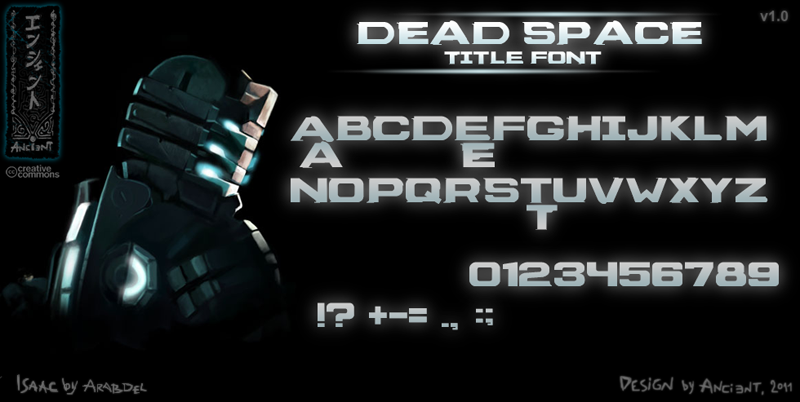
Preview and download Dead Space Box Art Font. Created by Nick Polyarush in Techno Sci-fi styles with Free for personal use license.
Font name: | Dead Space Box Art |
Author: | Nick Polyarush |
Note by Nick Polyarush | |
This is the Dead Space font that appears on the Box Cover and ingame on the title screen, as well as in Dead Space: Aftermath movie. |